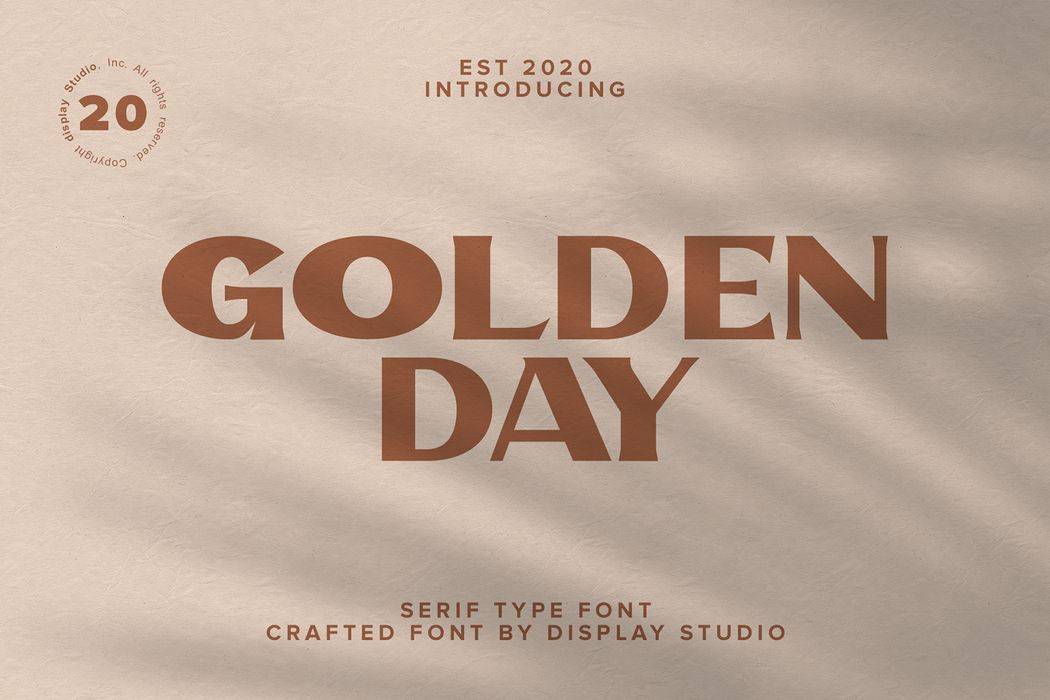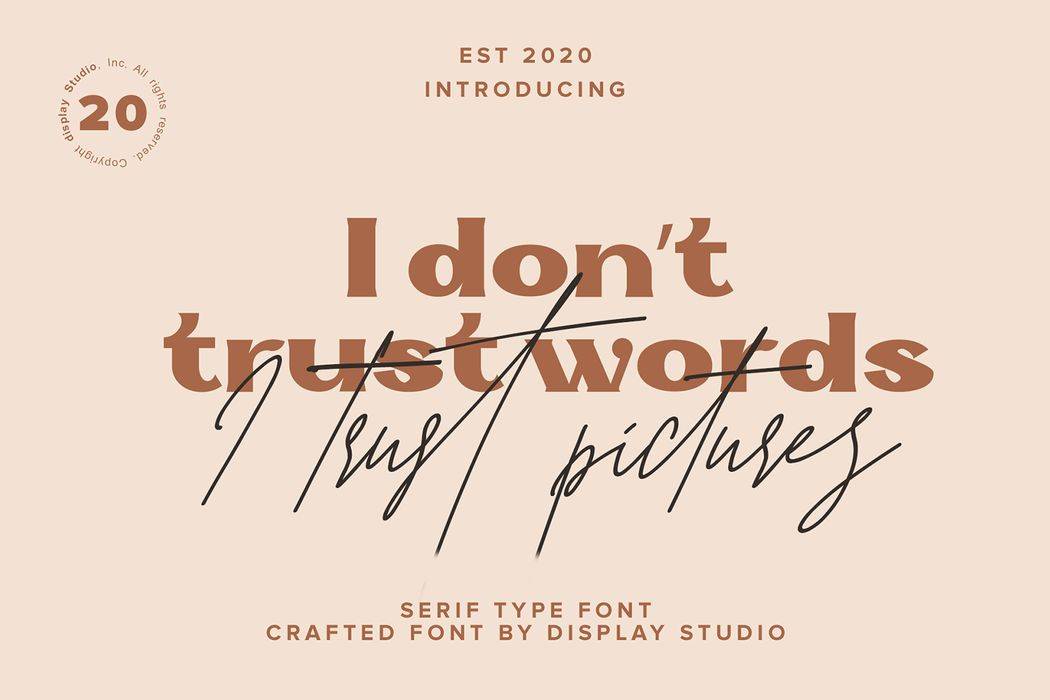
Golden Day is a bold serif font with a strong presence characterized by its thick strokes and subtle contrast. Its unique letterforms, including bracketed serifs and playful curved details, give it a vintage yet sturdy feel, making it ideal for eye-catching headlines, logos, and branding that demand a classic, confident look. This font works well where a blend of tradition and boldness is needed to stand out with elegance.
Golden Day Font
About Golden Day Font
| Font family | Golden Day Font |